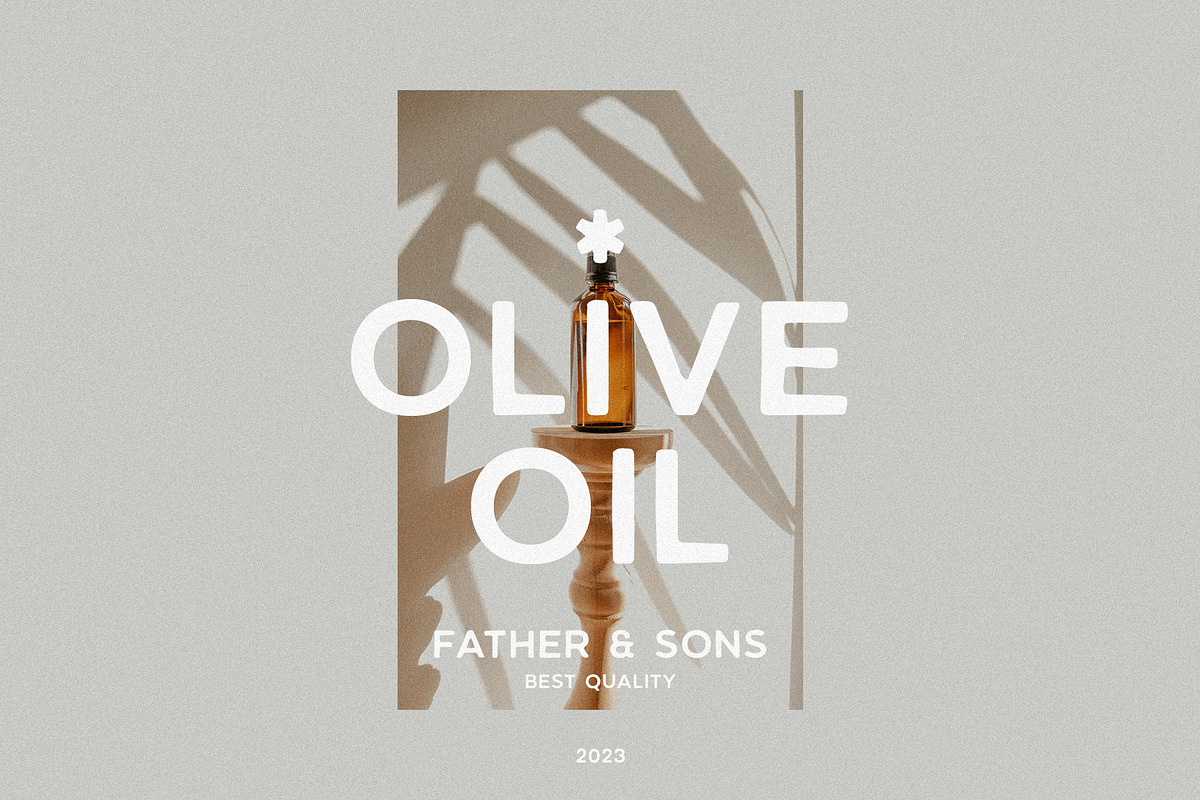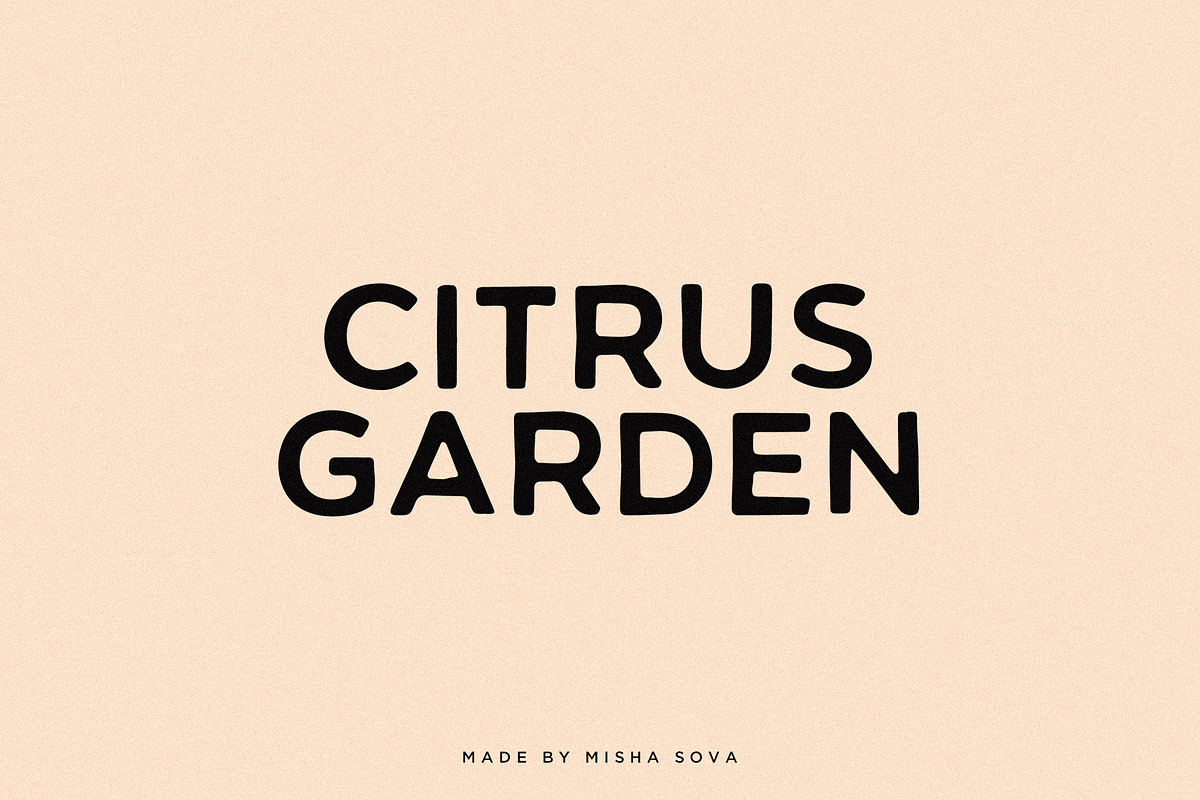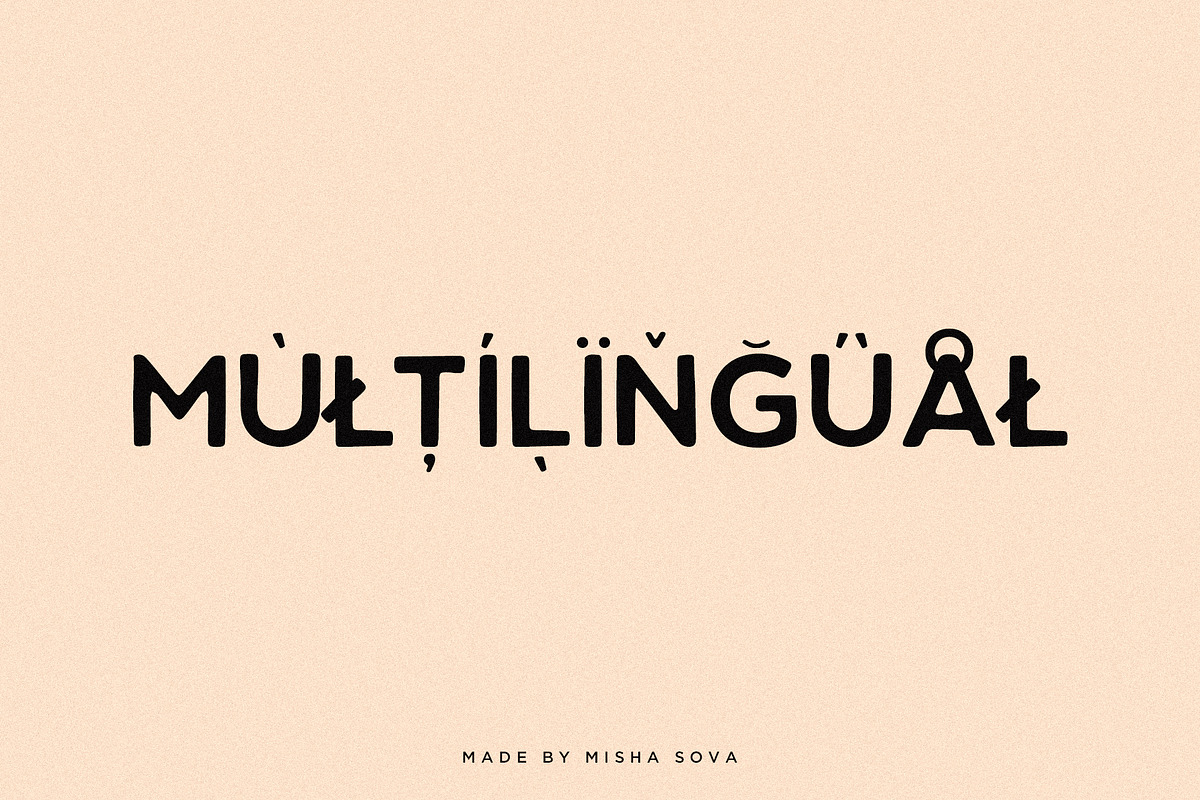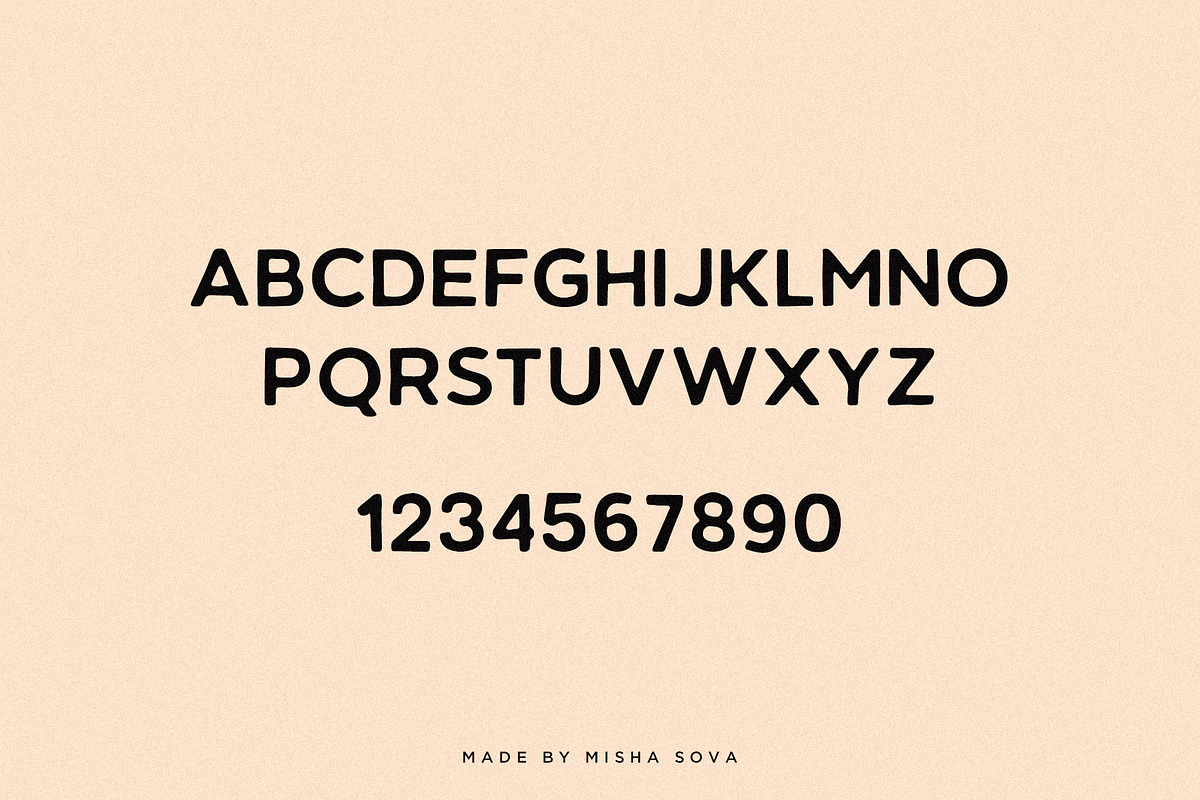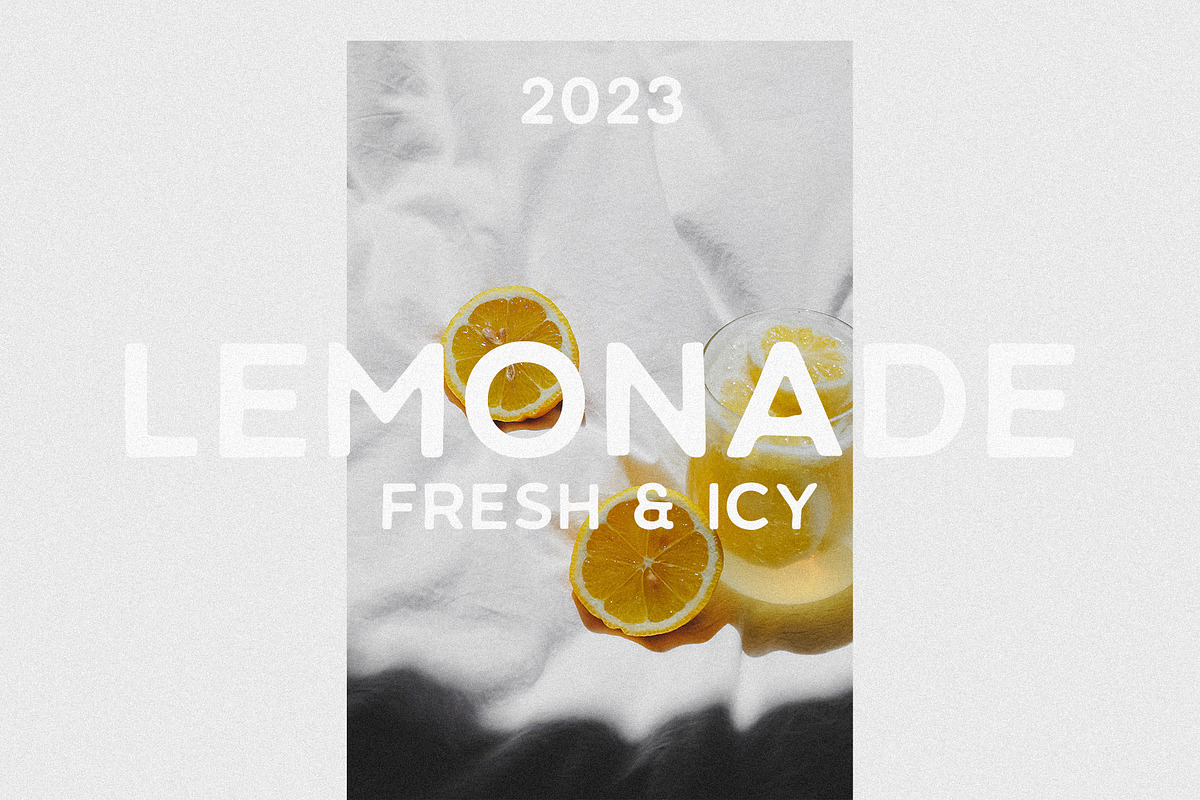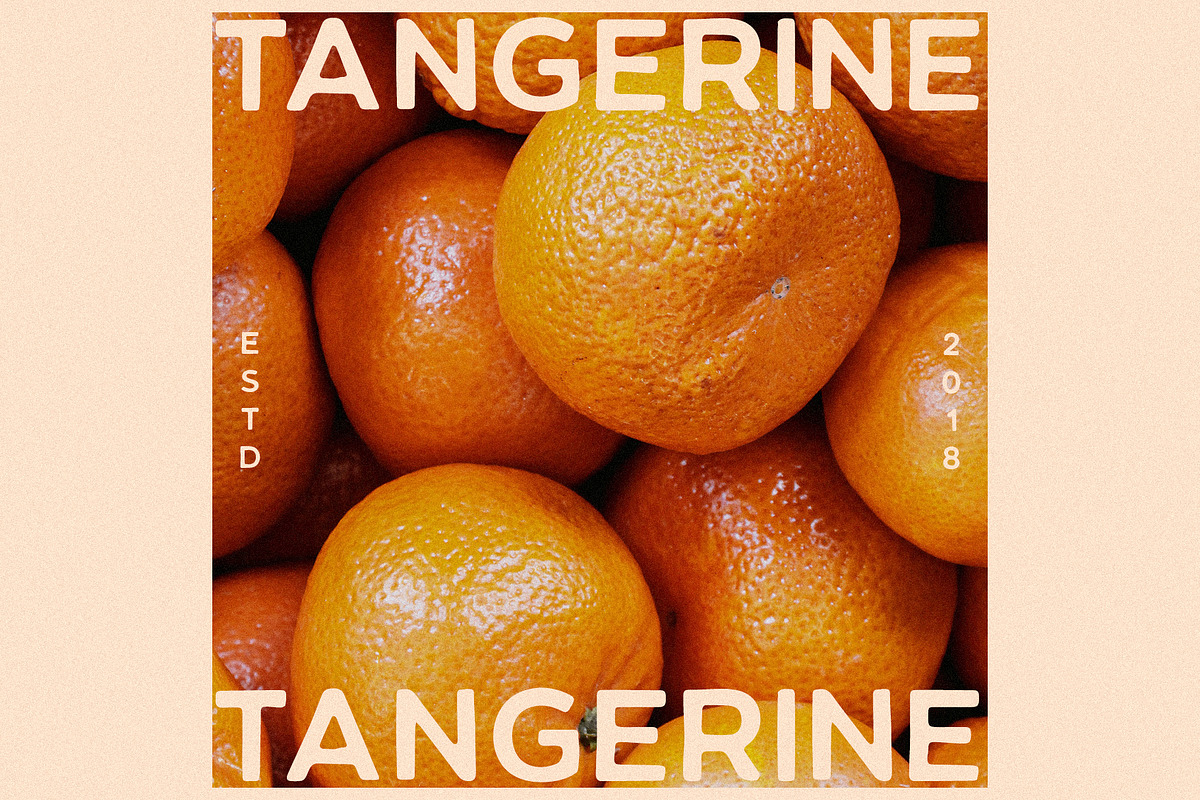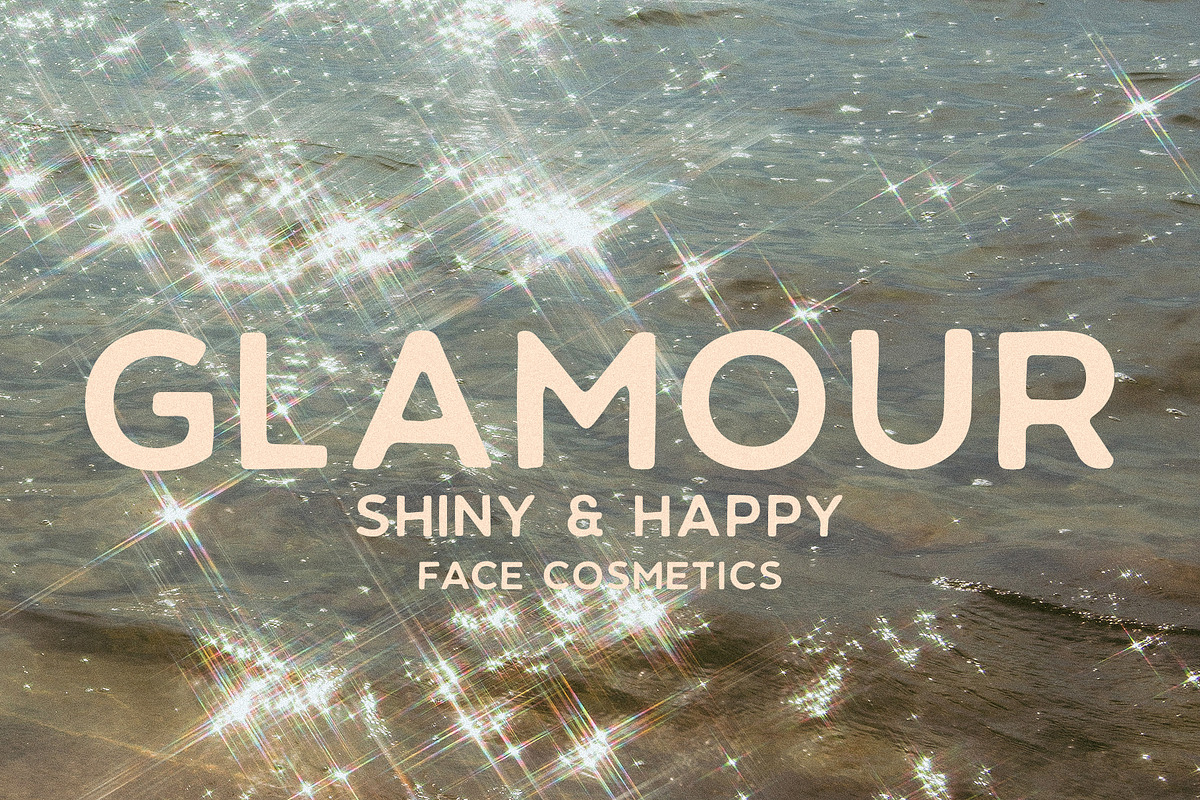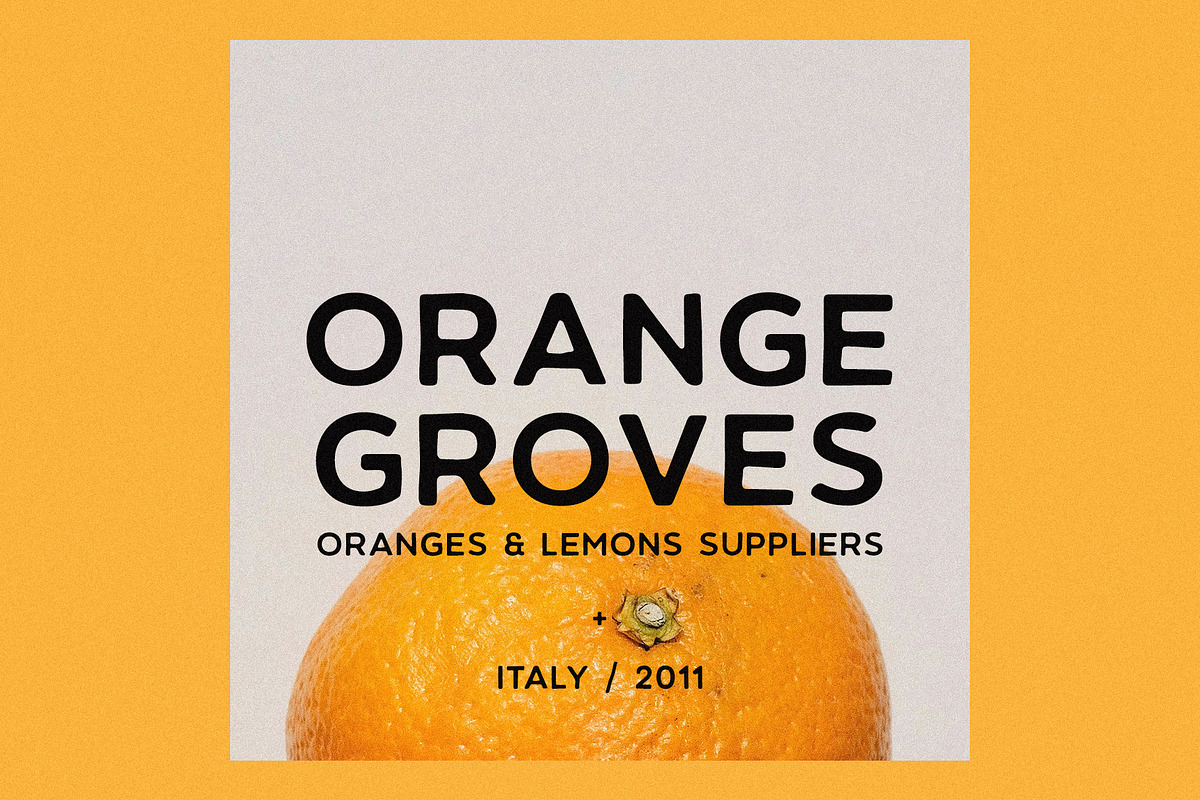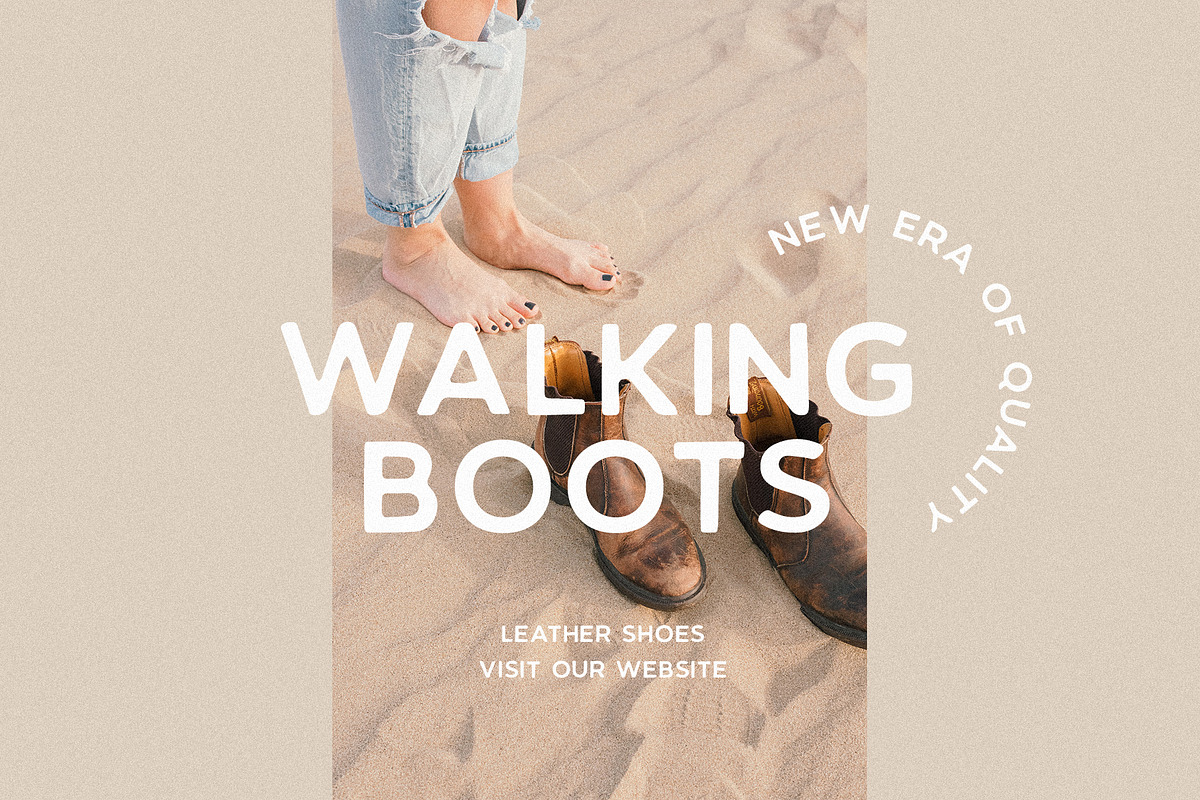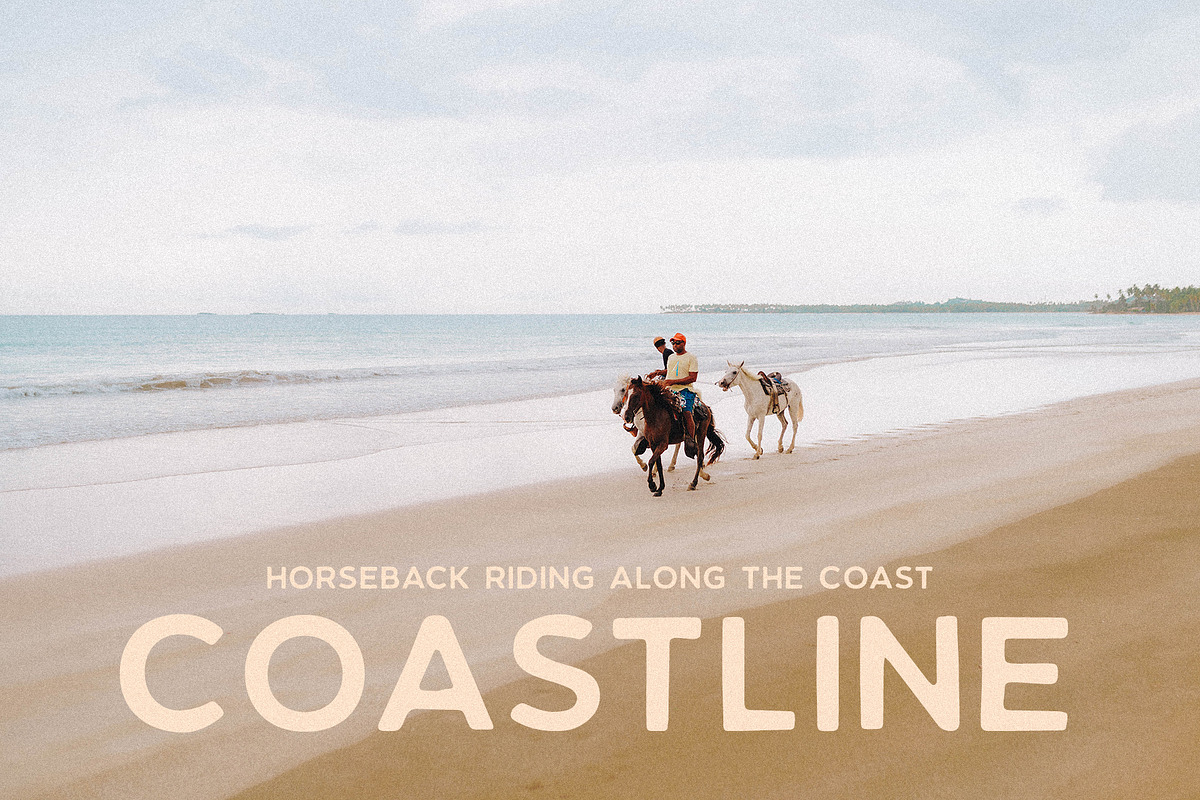
CITRUS GARDEN - vintage sans serif
CITRUS GARDEN - vintage sans serif by Misha Sova
CITRUS GARDEN is a unique, classic vintage sans serif that brings freshness and vibrancy to your design. Its stylish and graceful letters are reminiscent of juicy citrus fruits, which give your projects a special freshness and vitality. CITRUS GARDEN is perfect for creating summer posters, vintage cards, book covers and more. Discover vibrancy and energy with CITRUS GARDEN, the sans serif that adds a unique citrus flavor to your design.
CITRUS GARDEN features:
- Letters
- Basic Ligatures
- More than 250 glyphs